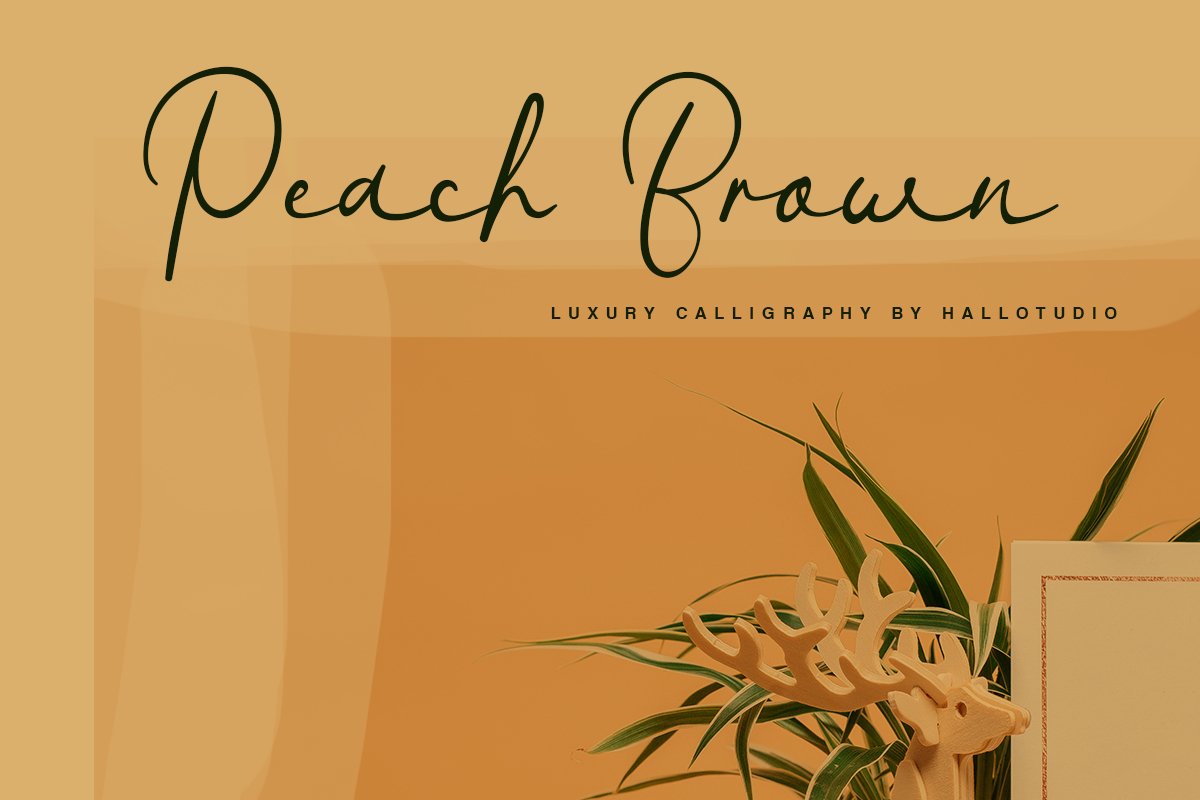
Peach Brown
Peach Brown is luxury callygraphy font. This font is perfect for branding projects, logo, wedding designs, social media posts, advertisements, product packaging, product designs, label, photography, watermark, invitation, stationery and any projects that need handwriting taste.